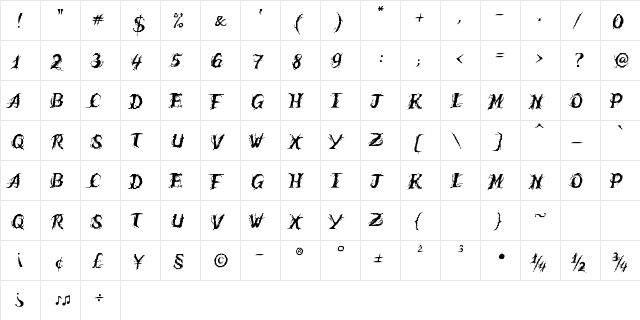
Humble Wall Regular
| Designer | Le Thi Thu Huong |
Design Context for Humble Wall Typeface
Humble Wall is a composed and adaptable typeface that performs quietly and consistently across a wide range of design contexts.